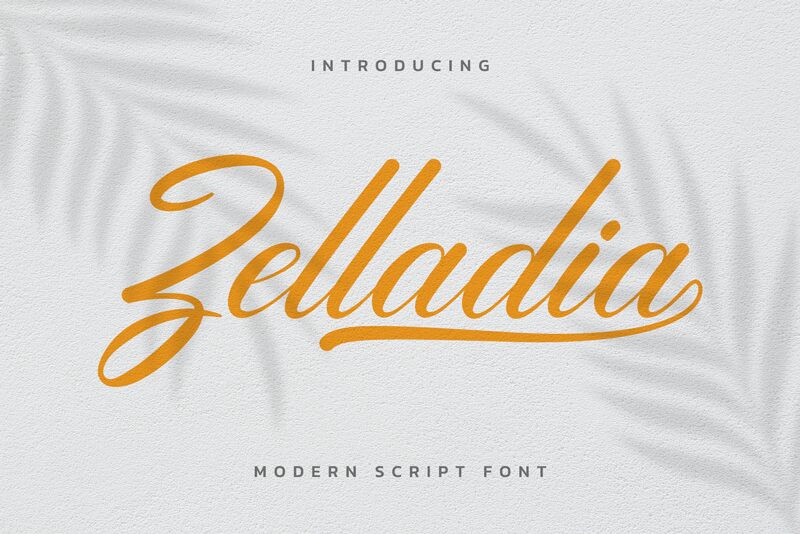
Zelladia is an elegant modern calligraphy script font designed by Hamber Perdiansyah. It has a light weight and narrow width, making it perfect for creating stylish logos, wedding invitations, social media posts and other creative projects.
Zelladia
Hamber Perdiansyah